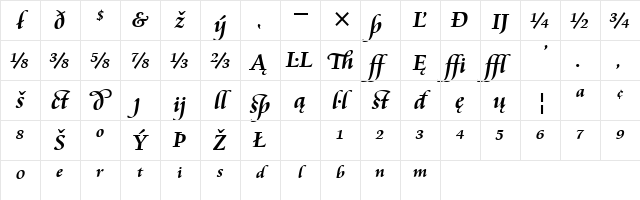
Cataneo Ext BT Bold Extension
Style: Bold Extension
Cataneo Ext BT Family
Cataneo Ext BT Bold Extension
Design Context for Cataneo Ext BT
Cataneo Ext BT is a composed and adaptable typeface that performs quietly and consistently across a wide range of design contexts. Its bold stroke weight gives it real presence on the page.